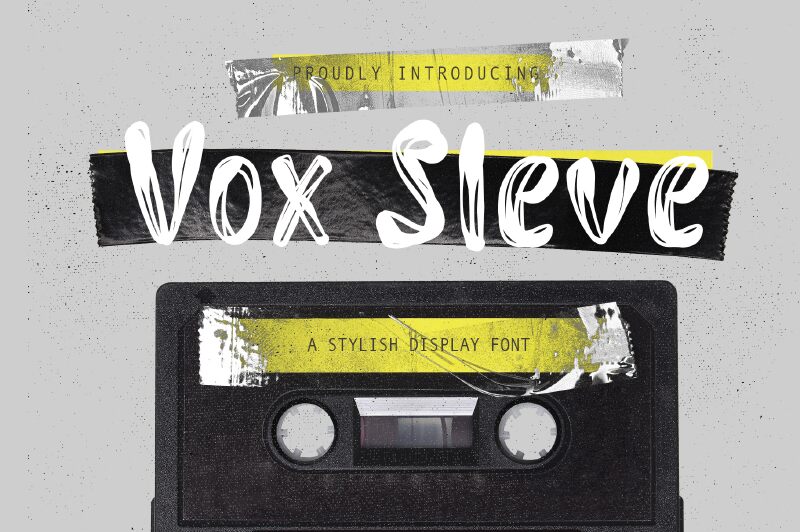
Vox Sleve-demo
Vox Sleve font combines hand-drawn aesthetics and casual elegance in a textured display to create something truly unique. Designed by Tera Asset Garage, it keeps an expressive character and artistic flair that rivals only its simplicity. The letters have a soft natural look with minimal variance and work nicely to make the text stand out visually.
Vox Sleve would make an excellent choice for posters, social media posts, cards, banners, food menus, book covers, branding materials, or any other online or in-print designs. Access the free display font today and make the best out of its beautiful character in your next professional project!